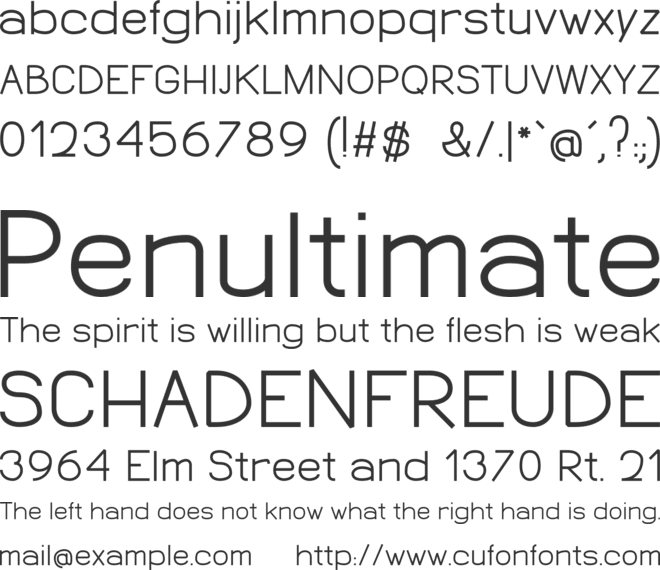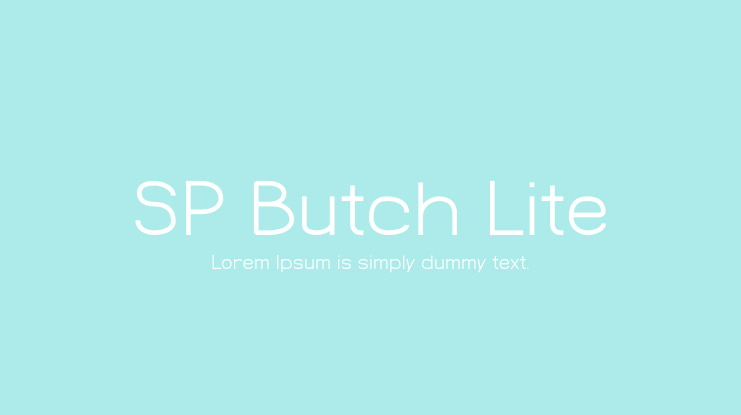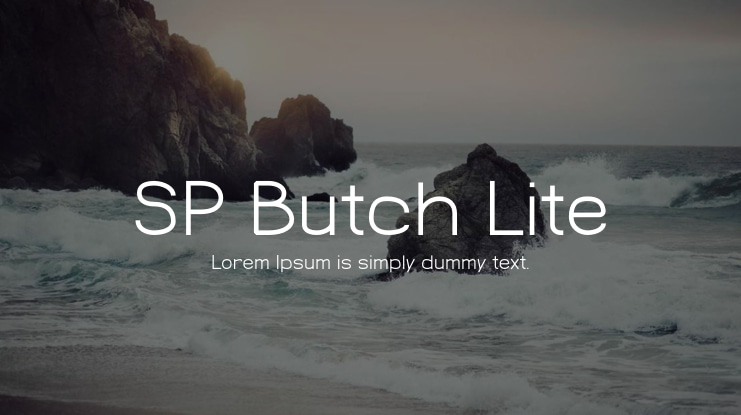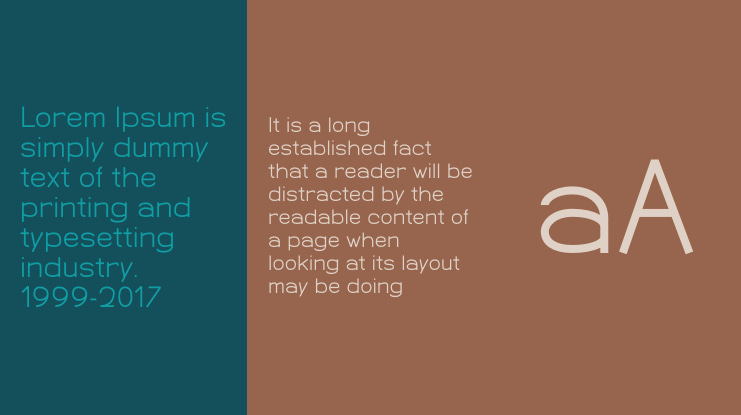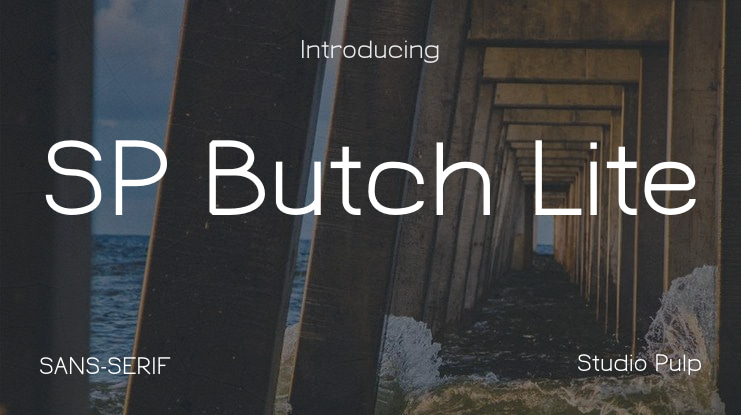
SP Butch Lite Font Family
Discover the powerful simplicity of SP Butch, a masterfully crafted sans-serif font designed in 2023 by Studio Pulp. Inspired by the timeless aesthetics of the film classic "Pulp Fiction" (1996), SP Butch exudes the fearlessness and style of the iconic character that bears its name.